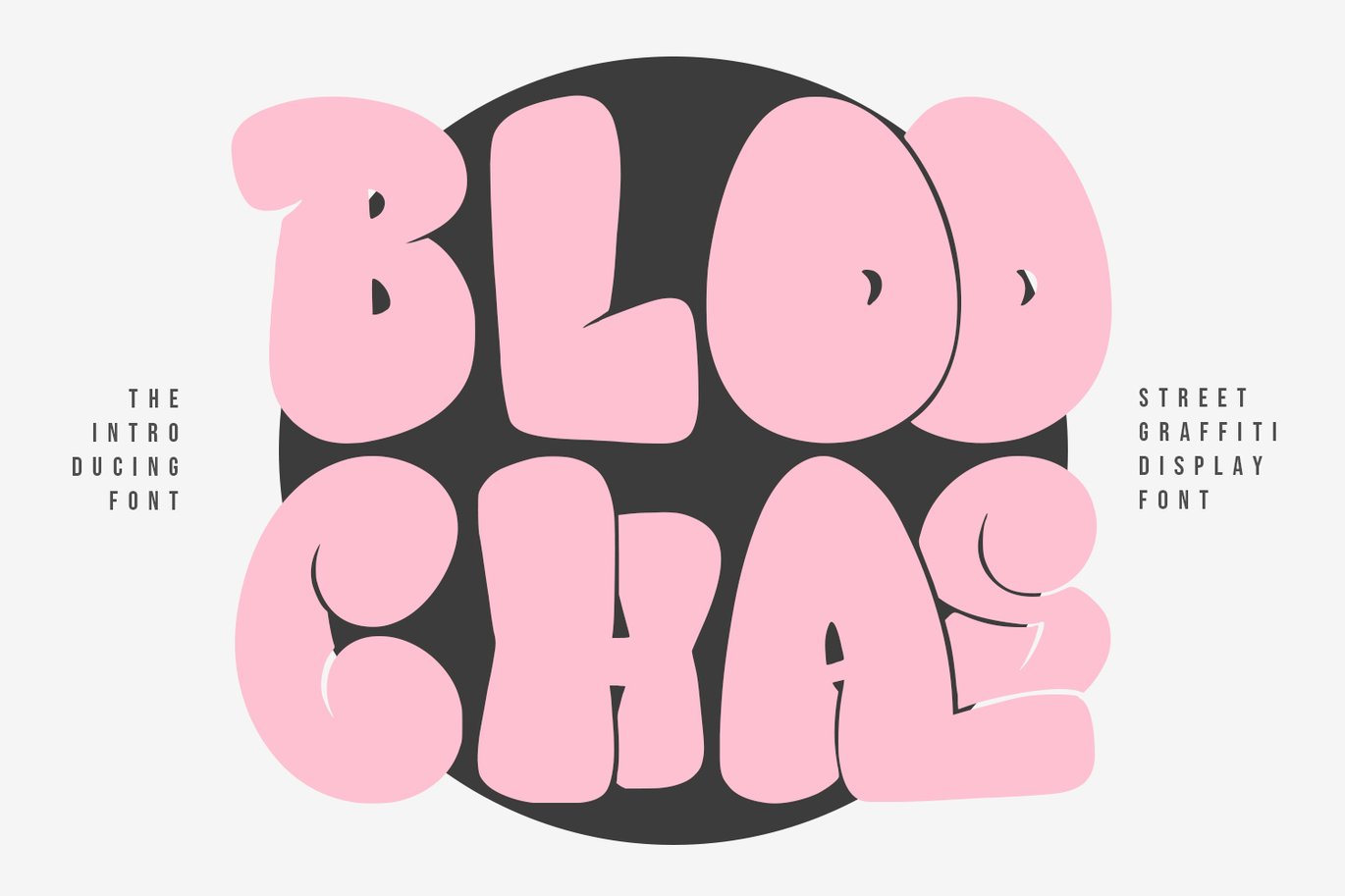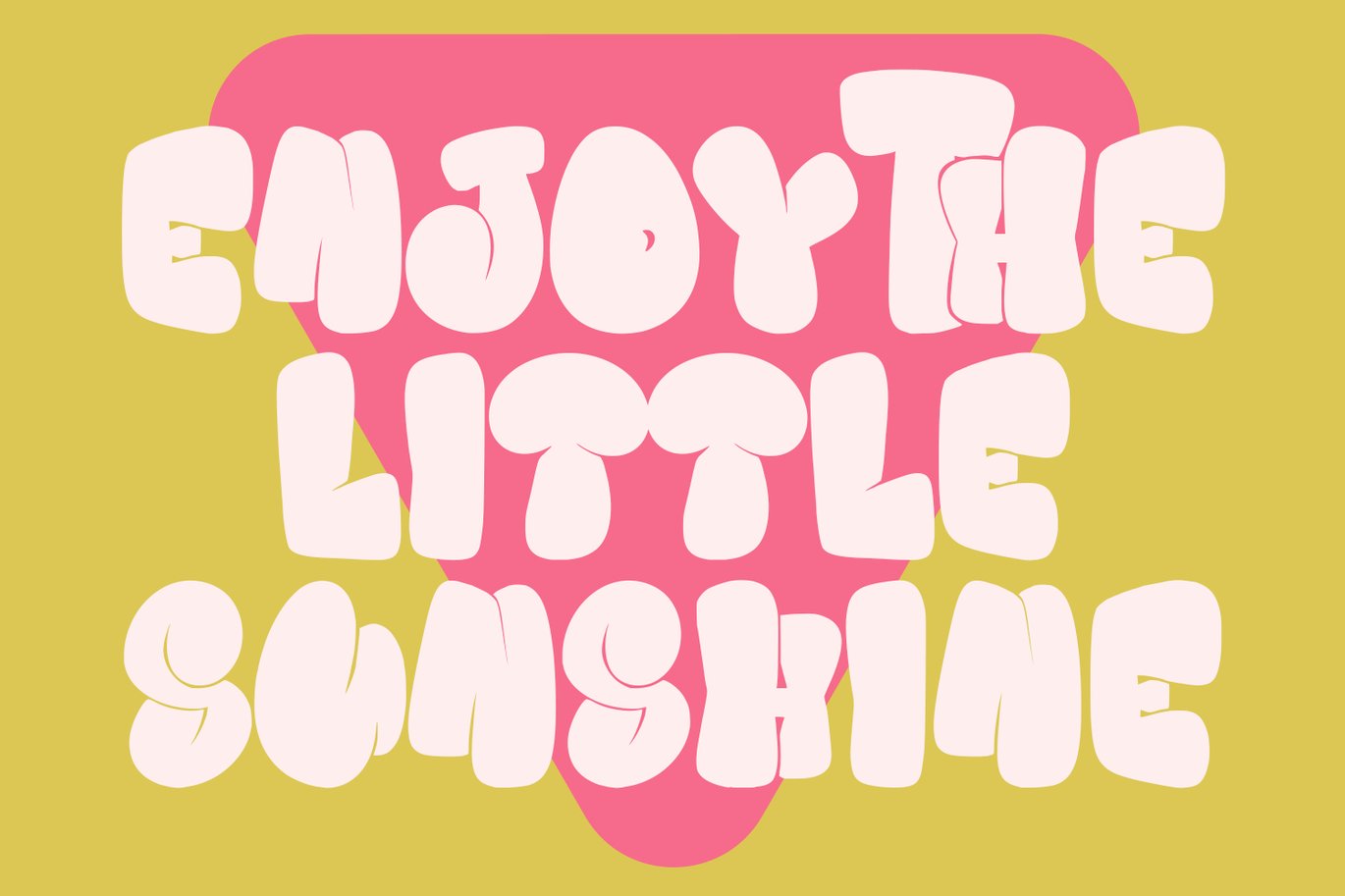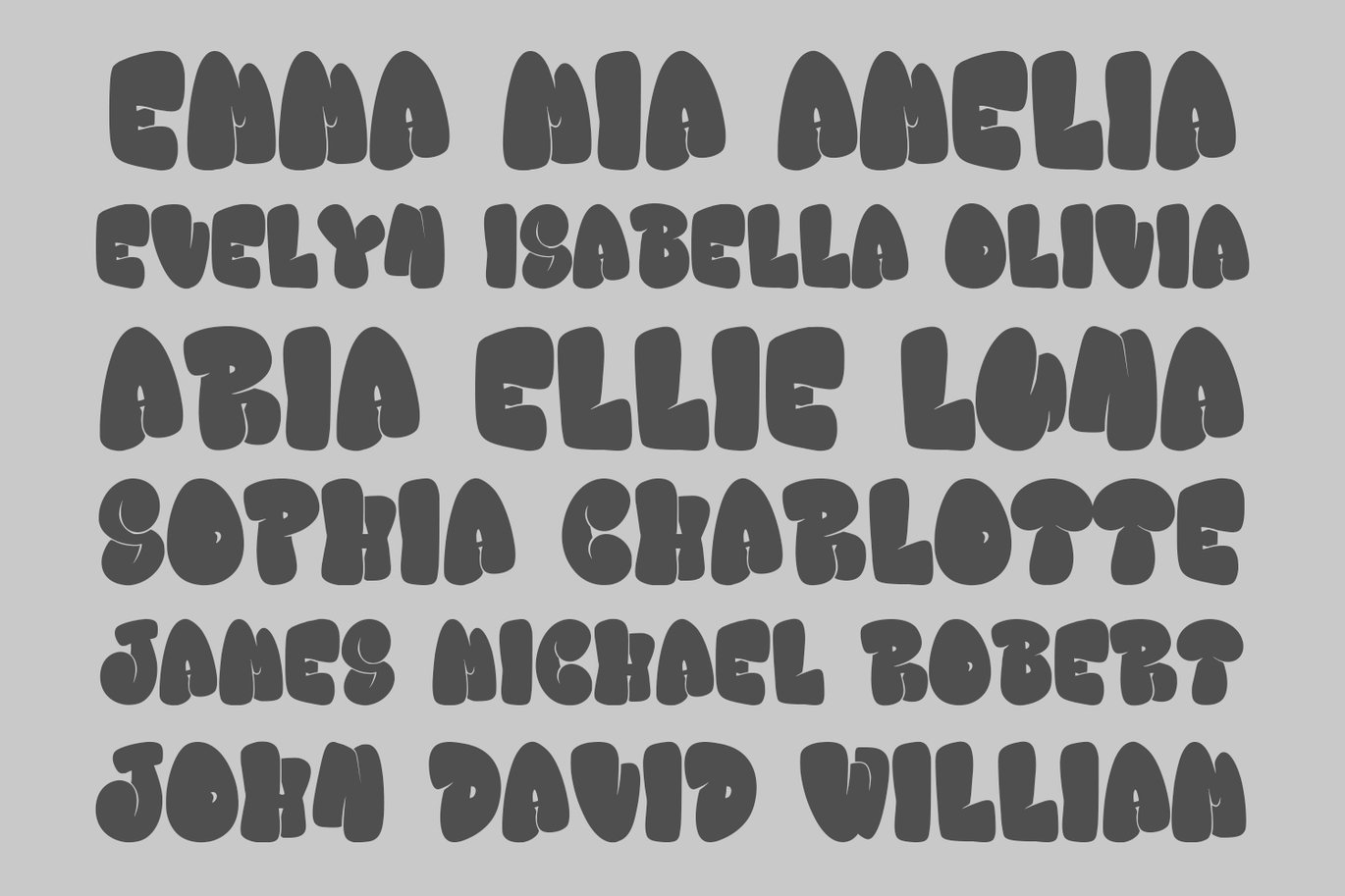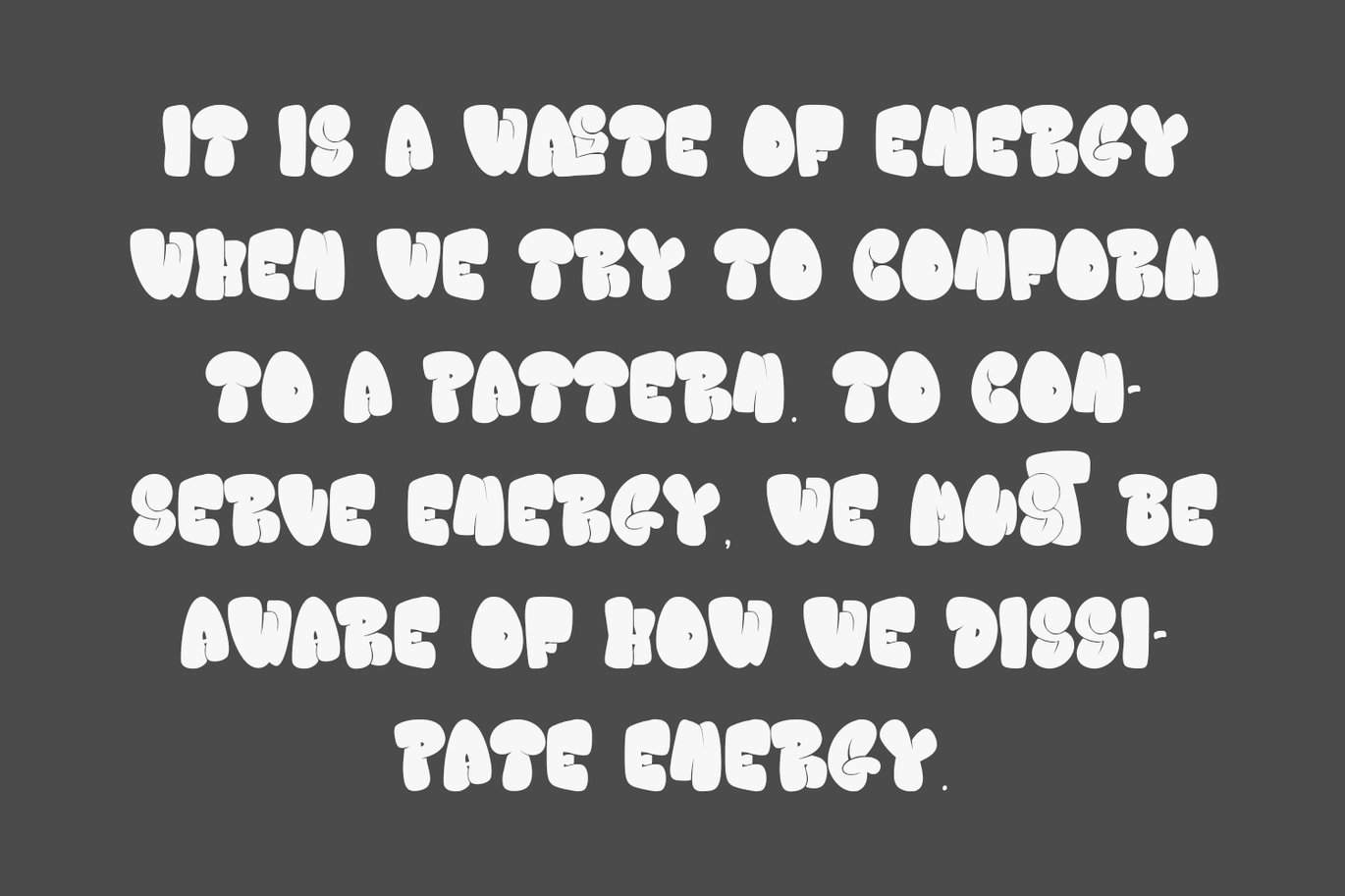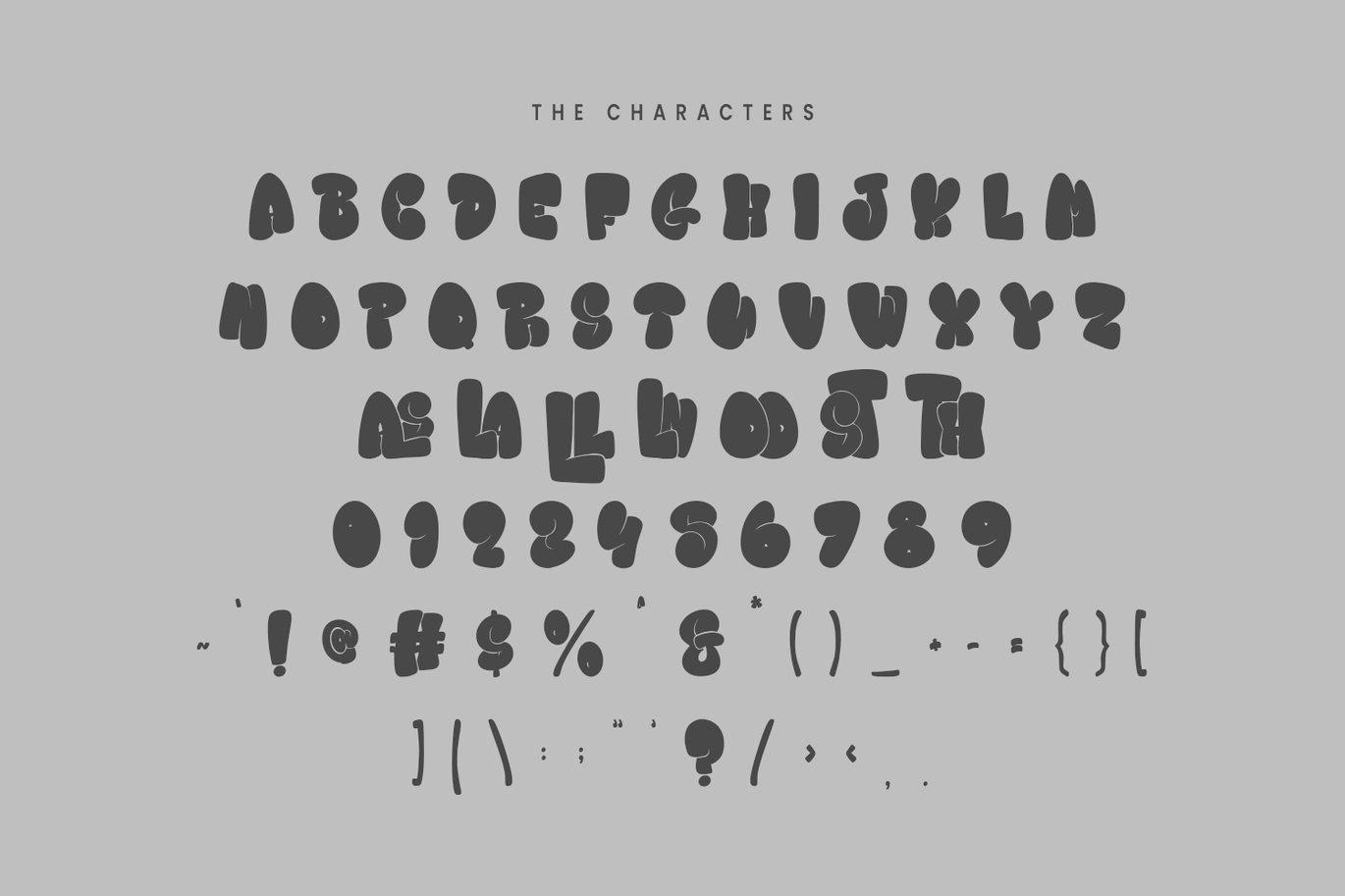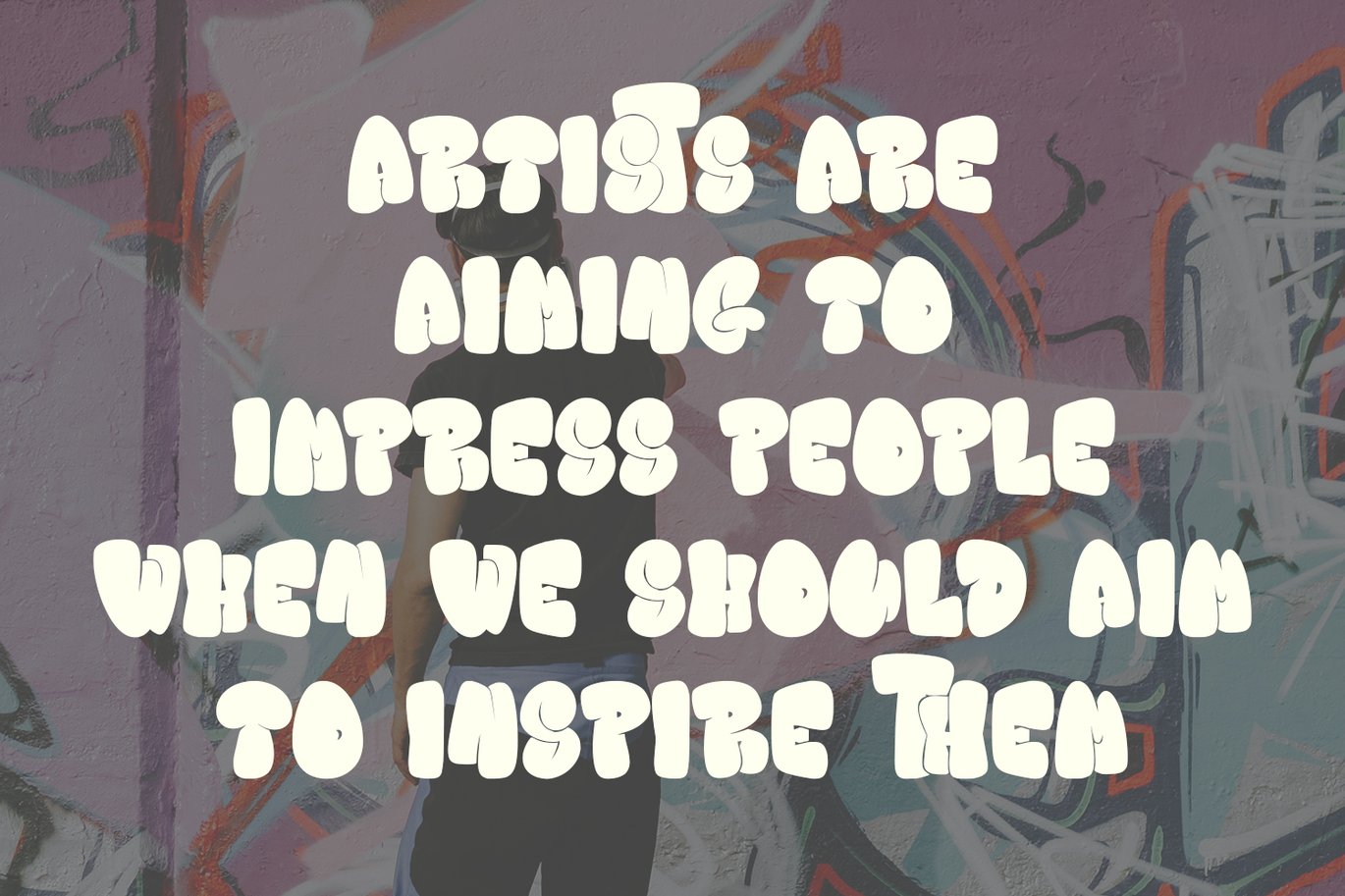
Bloochas Street Graffiti Display Font
Bloochas graffiti display font. With bold stroke, fun character with ligatures. To give you an extra creative work. Bloochas graffiti display font support multilingual language. This font is good for logo design, Social media, Movie Titles, Books Titles, a short text even a long text letter and good for your secondary text font with script or serif. Make a stunning work with Bloochas graffiti display font.